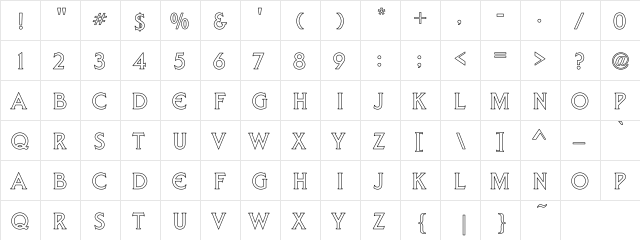
Statue-Hollow Regular
Design Context for Statue-Hollow Typeface
Statue-Hollow takes a measured approach to typography — its balanced proportions and neutral character make it a reliable workhorse for both digital and print work.